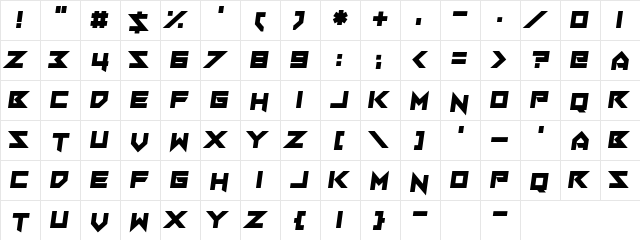
Sacred Hertz Regular
Design Context for Sacred Hertz Typeface
Sacred Hertz is a composed and adaptable typeface that performs quietly and consistently across a wide range of design contexts.
Pro Tip: Use Sacred Hertz in both headline and body roles to test its range before committing to a single application.